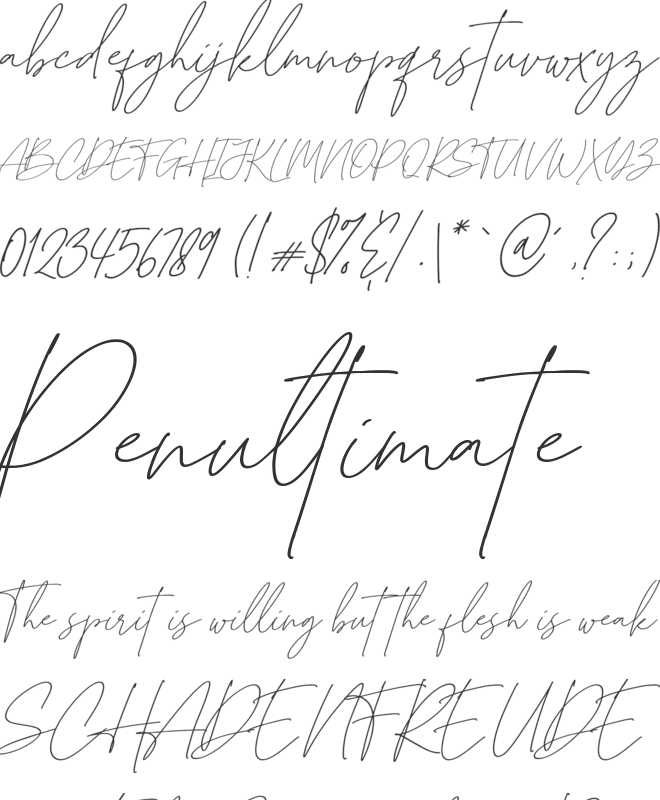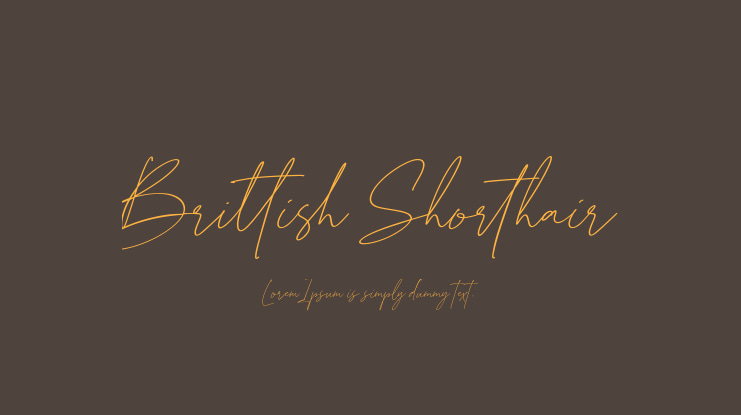
Brittish Shorthair Font
Hanief Farandi
Brittish Shorthair Script. Made from natural pen.
it will make your design project more beautiful.
The font is suitable for any design like branding, logo, tagline, fashion,
print template, quotes, wedding and etc.